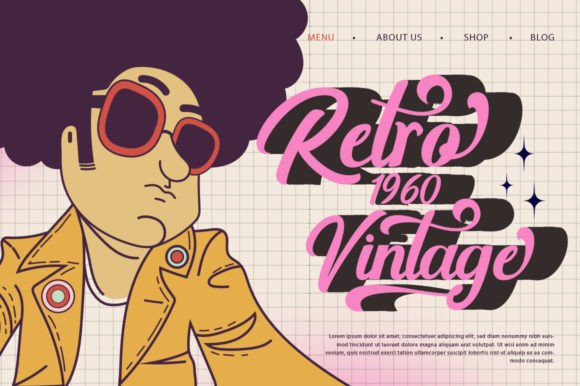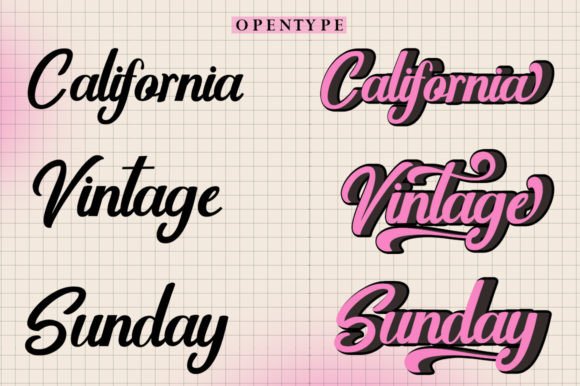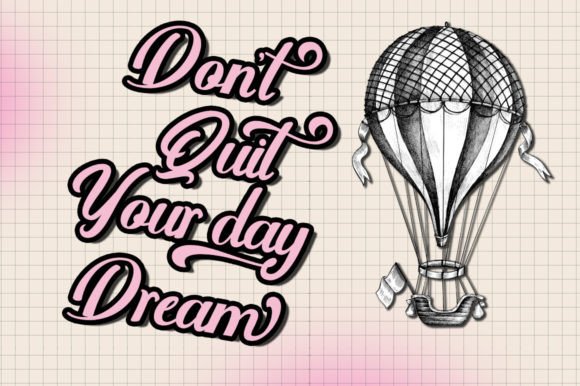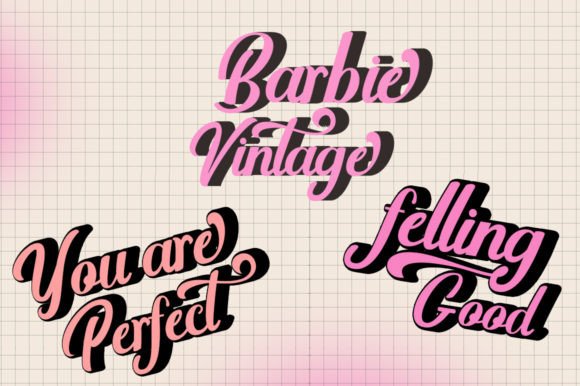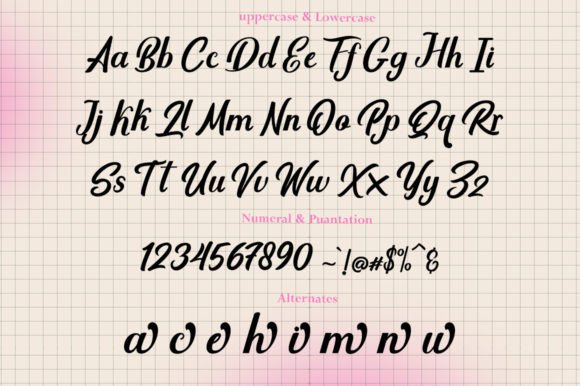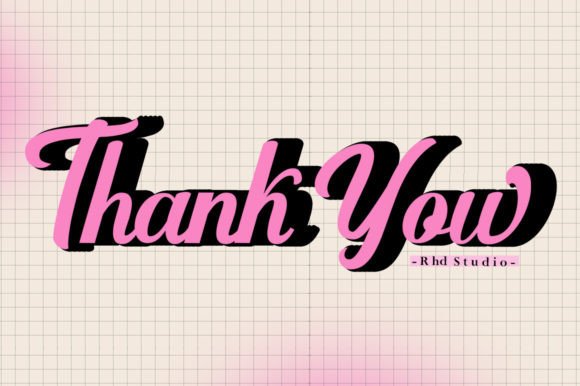
Introducing Antimage Retro: A Timeless Bold Retro Script Font
Are you looking for a font that can transport your designs back in time while adding a modern twist? Look no further than Antimage Retro, a charming and versatile bold retro script font. This typeface exudes nostalgia and is perfect for a variety of creative projects, especially those with a vintage theme. In this article, we’ll dive into the features and benefits of Antimage Retro, and explore how it can elevate your designs.
A Font that Combines Nostalgia with Modernity
Antimage Retro is a bold retro script font that effortlessly blends the charm of the past with modern sensibilities. Its timeless elegance and sophisticated feel make it an excellent choice for designers who want to infuse their work with a sense of nostalgia. Whether you’re working on a vintage-themed project, a branding campaign, or a creative endeavor, Antimage Retro is sure to impress.
Key Features of Antimage Retro
- Bold and Versatile: Antimage Retro is a bold font that makes a statement. Its versatility ensures that it can be used in a wide range of creative projects, from posters and flyers to logos and packaging.
- Retro Script Style: The font’s retro script style is reminiscent of classic typography from the past. Its elegant lines and curves evoke a sense of nostalgia and sophistication.
- Timeless Elegance: Antimage Retro’s timeless elegance ensures that it won’t go out of style anytime soon. Its classic feel makes it an excellent choice for designers who want to create designs that stand the test of time.
- Multiple Alternative Characters: One of the standout features of Antimage Retro is its extensive collection of alternative characters. This allows designers to add a touch of uniqueness to their work and experiment with different styles.
Perfect for Vintage-Themed Projects
Antimage Retro is particularly well-suited for vintage-themed projects. Its retro script style and nostalgic feel make it an excellent choice for designers who want to create designs that evoke a sense of the past. Whether you’re working on a branding campaign for a vintage-inspired product or creating a poster for a retro-themed event, Antimage Retro is sure to deliver.
So, what are the benefits of using Antimage Retro for designers and crafters? Here are just a few:
- Ease of Use: Antimage Retro is incredibly easy to use, even for designers who are new to working with script fonts.
- High Versatility: The font’s versatility ensures that it can be used in a wide range of creative projects, from digital designs to print materials.
- Unique and Creative: Antimage Retro’s extensive collection of alternative characters allows designers to add a touch of uniqueness to their work and experiment with different styles.
- Time-Saving: With Antimage Retro, designers can save time and effort by using a pre-designed font that already has a polished, professional look.
Tips for Using Antimage Retro
Here are a few tips for using Antimage Retro in your designs:
- Experiment with Different Sizes: Antimage Retro looks great in a variety of sizes, from large headlines to smaller body text.
- Play with Alternative Characters: Take advantage of Antimage Retro’s extensive collection of alternative characters to add a touch of uniqueness to your work.
- Pair with Other Fonts: Antimage Retro pairs well with a variety of other fonts, so don’t be afraid to experiment with different combinations.
| Font Name | Antimage Retro Font |
| Author | studiorhd |
In conclusion, Antimage Retro is a charming and versatile bold retro script font that’s perfect for designers who want to infuse their work with a sense of nostalgia and timeless elegance. With its extensive collection of alternative characters, ease of use, and high versatility, Antimage Retro is an excellent choice for a wide range of creative projects. Whether you’re working on a vintage-themed project or simply want to add a touch of sophistication to your designs, Antimage Retro is sure to deliver.